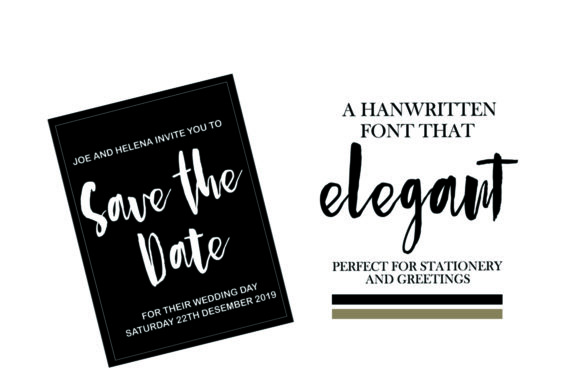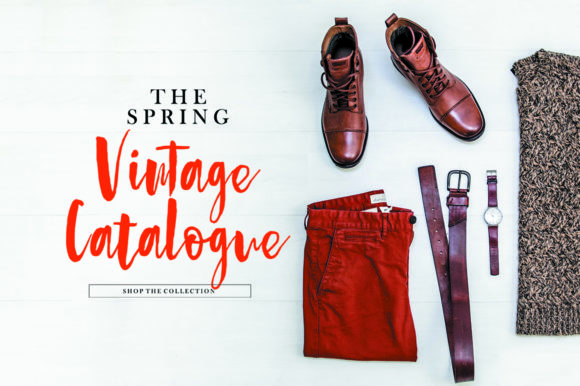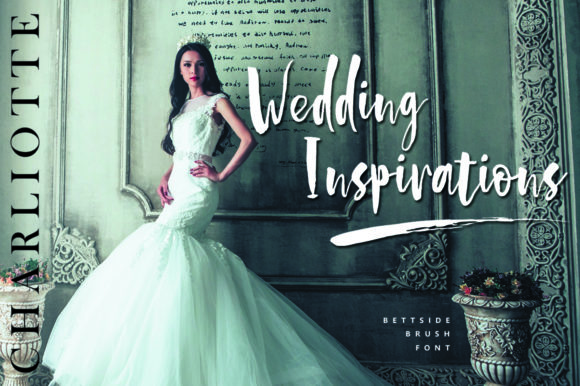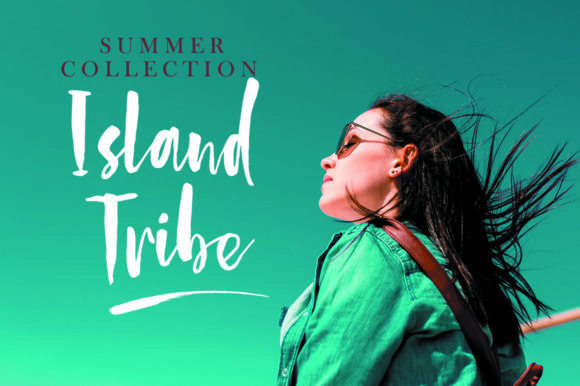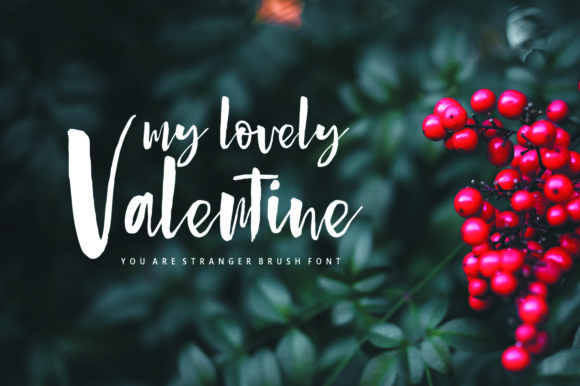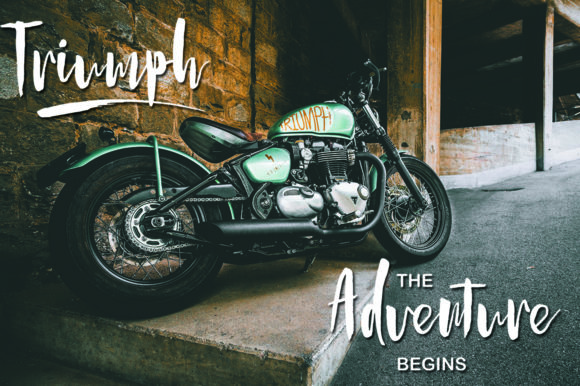
The Bettside Font: A Modern Script with a Lovely Twist
I’ll never forget the moment I stumbled upon the perfect font for a wedding invitation project. I had been searching for hours, trying out different scripts and serif fonts, but nothing seemed quite right. That was until I discovered the Bettside Script – a modern script font with an irregular baseline that instantly captured the trendy and feminine style I was looking for.
As a designer, I’m always on the lookout for fonts that can add a unique touch to my projects. And with Bettside, I knew I had found something special. In this article, I’ll share my honest review of the font, provide a practical guide on how to use it, and explore similar fonts that you might love.
An Honest Review of Bettside Font
- 💕 Trendy and feminine style that’s perfect for wedding invitations, thank you cards, and more
- ✅ Unique irregular baseline that adds a touch of whimsy to any design
- 🎉 Support for OpenType features, glyphs, and stylistic alternates
- 📚 Extensive character set, including multilingual support
- ⚠️ Some users might find the irregular baseline too unconventional for certain projects
- 🤔 Limited availability of certain glyphs or alternates in non-OpenType supporting software
The Story Behind Bettside Font
The Bettside Script was designed with the intention of creating a modern, feminine font that captures the essence of contemporary design. The designer aimed to create a font that would be perfect for wedding invitations, thank you cards, and other special occasions. With its irregular baseline and support for OpenType features, Bettside Script has become a versatile font for designers and crafters alike.
Q: What type of projects is Bettside Font best suited for?
A: Bettside Font is perfect for wedding invitations, thank you cards, quotes, greeting cards, logos, and more!
Q: Does Bettside Font support OpenType features?
A: Yes, Bettside Font supports OpenType features, including glyphs, ligatures, and stylistic alternates.
Q: Is Bettside Font available in multiple languages?
A: Yes, Bettside Font has multilingual support, making it a great choice for international projects.